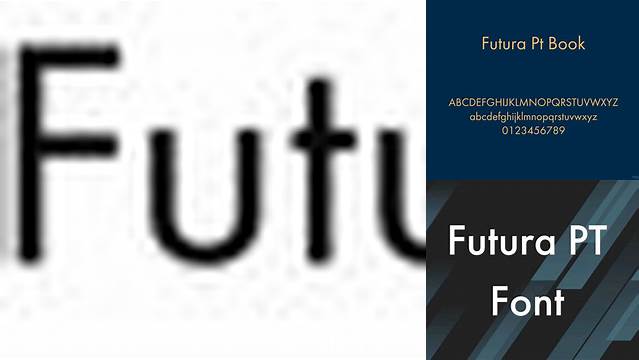
1. What is Futura PT Book Font?
So, what exactly is the Futura PT Book font? Well, to understand that, we need a little background on the Futura family itself. Futura is a geometric sans-serif typeface designed by Paul Renner in 1927. It's known for its clean lines, simple geometric shapes, and overall modern feel. Think of it as the epitome of Bauhaus design in font form. The Futura PT Book is a specific weight within this family, offering a medium-weight option that's perfect for body text and longer paragraphs. It's not too bold, not too light, just right! Its readability makes it an excellent choice for various projects, from websites to print materials. The balance between its geometric structure and readability is what makes it so popular among designers. We will discuss more about Futura PT Book and its usage in the sections below.
5. Futura PT Book Font in Logo Design
Futura PT Book shines in logo design due to its clean and modern aesthetic. Its geometric forms convey a sense of sophistication and clarity, making it perfect for brands that want to project a professional and trustworthy image. Think about brands in the tech, finance, or design industries – Futura often fits right in. When using Futura PT Book for a logo, consider its legibility at different sizes. While the Book weight is generally quite readable, it’s always a good idea to test it out in various contexts, from tiny favicons to large billboard ads. Also, think about pairing it with other fonts if you need a secondary typeface for your brand. A classic pairing is Futura with a serif font, which can add a touch of elegance and contrast. Ultimately, Futura PT Book can lend a timeless quality to your logo, ensuring it remains stylish for years to come. Let’s explore how it looks on websites next!
6. Implementing Futura PT Book on Websites
7. Futura PT Book in Mobile App Design
In the world of mobile apps, typography is king. Users are interacting with your app on small screens, so readability is absolutely paramount. Futura PT Book, with its clear and legible design, is an excellent choice for mobile app interfaces. Its clean lines and geometric forms ensure that text remains crisp and easy to read, even at smaller sizes. When using Futura PT Book in your app, consider the overall user experience. Think about font sizes, line heights, and letter spacing to optimize readability. You might also want to adjust the font weight depending on the context. For example, you might use Futura PT Bold for headings and Futura PT Book for body text. Also, make sure the font contrasts well with your background colors to ensure maximum readability. This is especially important for accessibility – you want to make sure your app is usable by everyone, regardless of visual impairments. We can also look into making presentations.
8. Creating Presentations with Futura PT Book
Need a font that commands attention without being distracting? Futura PT Book is your answer for presentations. It provides a professional and clean look, ensuring your message is delivered clearly and effectively. Whether you're crafting a pitch deck, a sales presentation, or an educational slideshow, Futura PT Book lends an air of sophistication and modernity. When using it in presentations, think about hierarchy. Use different weights and sizes to differentiate headings from body text, and keep your font choices consistent throughout the presentation. Also, be mindful of contrast. Ensure your text stands out against your background, especially in dimly lit rooms. Consider using Futura for both headings and body text for a cohesive look, or pair it with a complementary font for added visual interest. Next up, print materials and its relevance.
9. Using Futura PT Book for Print Materials
Futura PT Book isn't just for the digital world; it's a star in print too. Its clean lines and classic design make it a fantastic choice for brochures, posters, magazines, and other printed materials. Whether you're designing a sleek corporate brochure or an eye-catching poster, Futura PT Book will lend a professional and polished touch. When using it in print, consider the paper stock and printing method. Different paper types can affect how the font appears, so it's always a good idea to do some test prints. Also, pay attention to the font size and spacing. In print, you have more control over these elements than you do on the web, so take advantage of that to optimize readability. Futura PT Book works particularly well for body text in magazines and books, offering a comfortable reading experience. We will dive into graphic design applications later.
30. Staying Updated with the Latest Font Trends and Releases
The world of typography is constantly evolving, with new fonts being released all the time. Staying updated with the latest font trends can help you keep your designs fresh and modern. Following typography blogs, attending design conferences, and exploring online font foundries are great ways to discover new typefaces and trends. Experimenting with different fonts can help you develop your own unique typographic style. Phew! We've covered a lot, so I hope this guide has been super helpful! Go forth and create awesome designs with Futura PT Book!